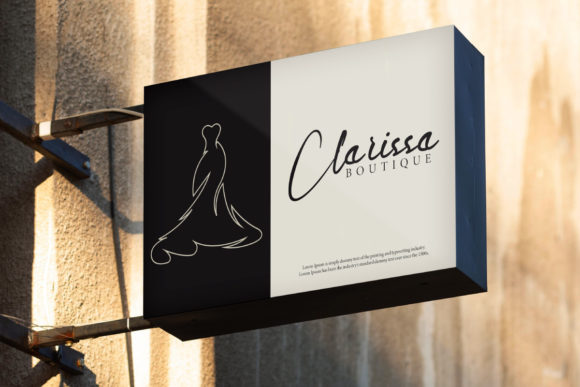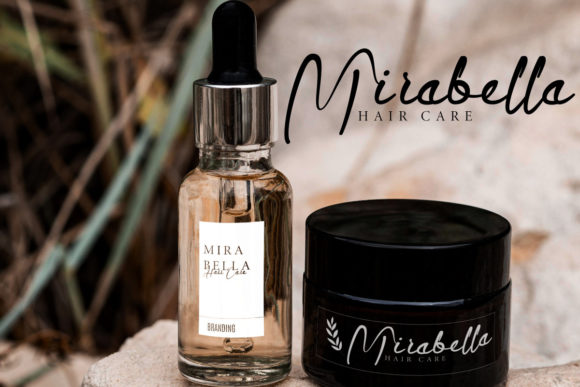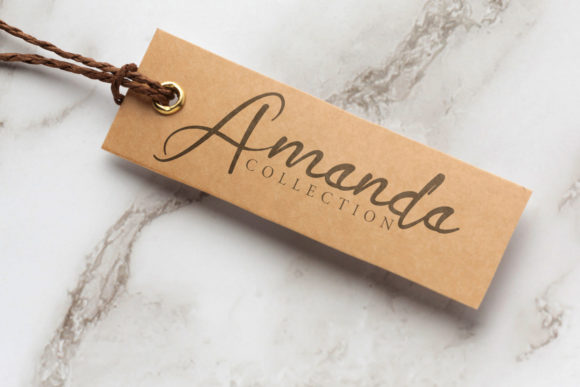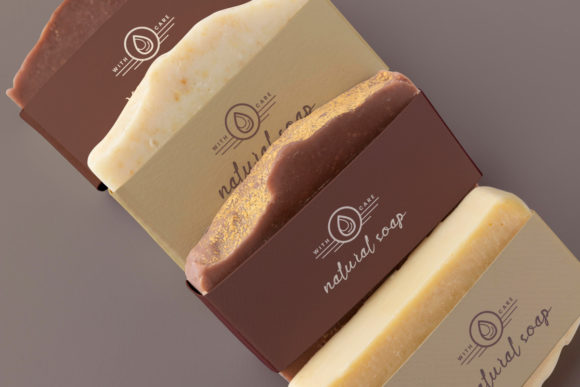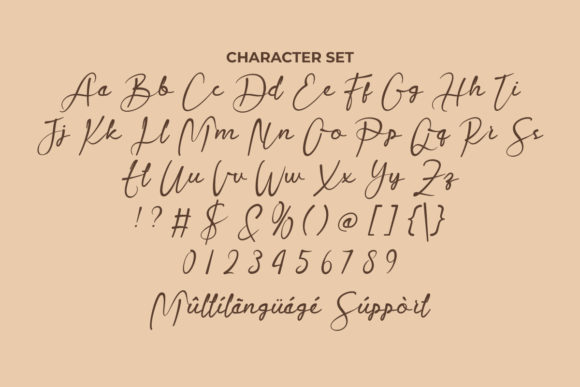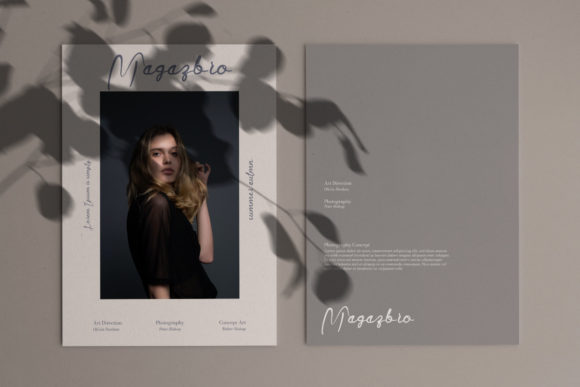
Introducing Dalisha Font: Elevate Your Designs with a Casual and Delicate Script
In the world of design, fonts play a pivotal role in conveying messages, evoking emotions, and creating lasting impressions. For designers and crafters seeking a beautiful and refreshing look for their projects, Dalisha Font emerges as an exceptional choice. This casual and delicate script font is meticulously crafted to add a touch of elegance and sophistication to various designs, making it an indispensable tool for creative professionals.
What is Dalisha Font?
Dalisha Font is a thoughtfully designed script font that embodies a casual yet delicate aesthetic. Its unique charm lies in its ability to bring a sense of freshness and beauty to designs, setting it apart from more traditional or common fonts. Whether you’re working on a logo, label, online signature, product design, signage, or title, Dalisha Font offers the versatility and style needed to make your project stand out.
Key Features of Dalisha Font
- Casual and Delicate Aesthetic: Dalisha Font boasts a script style that is both casual and delicate, providing a balanced look that is easy on the eyes and appeals to a wide audience.
- Versatility: One of the font’s most significant advantages is its versatility. It can be seamlessly integrated into various design projects, including but not limited to label designs, logo creations, online signatures, product packaging, signage, and titles.
- Beautiful and Refreshing: The font’s design ensures that it brings a refreshing look to any project. Its unique characters and flowing script can add a touch of elegance and sophistication, making it perfect for designers looking to infuse their work with a bit of personality.
Applications of Dalisha Font
Dalisha Font’s adaptability makes it suitable for a myriad of applications. Here are some of the key areas where this font can make a significant impact:
- Label Designs: For product labels or any form of labeling that requires a touch of elegance and uniqueness, Dalisha Font can be a perfect choice.
- Logo Designs: Creating a logo that stands out is crucial for any brand. Dalisha Font offers a distinctive script style that can help in crafting memorable logos.
- Online Signatures: Personalize your digital communications with a touch of class by using Dalisha Font for online signatures.
- Product Designs: Enhance your product designs with a font that offers both beauty and readability.
- Signage: For both digital and physical signage, Dalisha Font provides a clear, elegant, and eye-catching solution.
- Title Slides: Add a professional yet creative touch to your presentations or videos with Dalisha Font as your title slide font.
Why Choose Dalisha Font?
In a market flooded with fonts, Dalisha stands out due to its unique blend of casualness and delicacy. Here are a few reasons why designers and crafters might prefer Dalisha Font:
- Unique Style: Offers a fresh alternative to commonly used fonts.
- High Versatility: Suitable for a wide range of design projects.
- Customization: Provides a solid foundation for further customization to fit specific project needs.
Dalisha Font is a beautiful addition to the world of typography, offering designers and crafters a casual and delicate script font that can elevate their designs. Its versatility, beauty, and ease of use make it an excellent choice for a wide range of projects. Whether you’re looking to add a touch of elegance to your product designs, create memorable logos, or simply want a refreshing look for your digital communications, Dalisha Font is a valuable resource to consider.
Discover the potential of Dalisha Font in your next design project and experience firsthand how this casual and delicate script font can transform your work into something truly special.